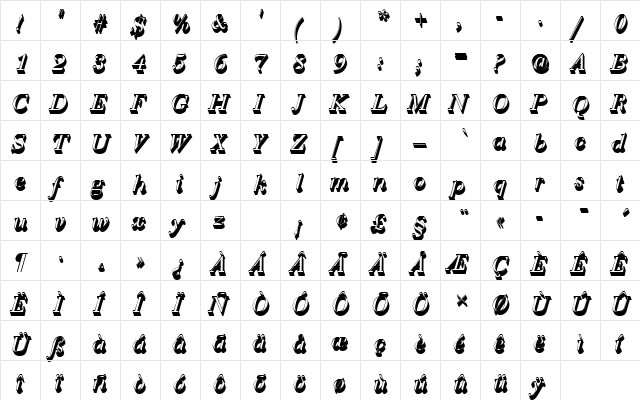
BauerBodDRegItaSh1 Regular Font Preview
BauerBodDRegItaSh1 Regular
BauerBodDRegItaSh1 Regular Font Details
Design Context for BauerBodDRegItaSh1 Typeface
BauerBodDRegItaSh1 is a composed and adaptable typeface that performs quietly and consistently across a wide range of design contexts.